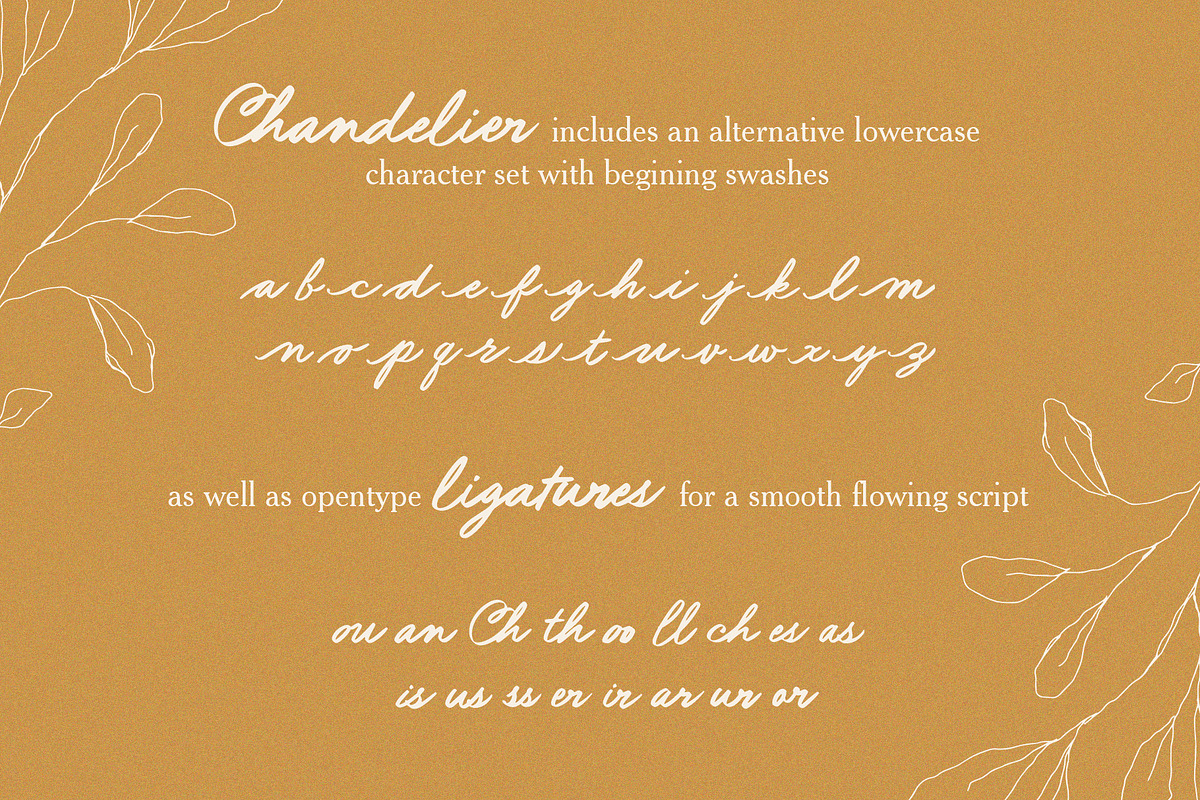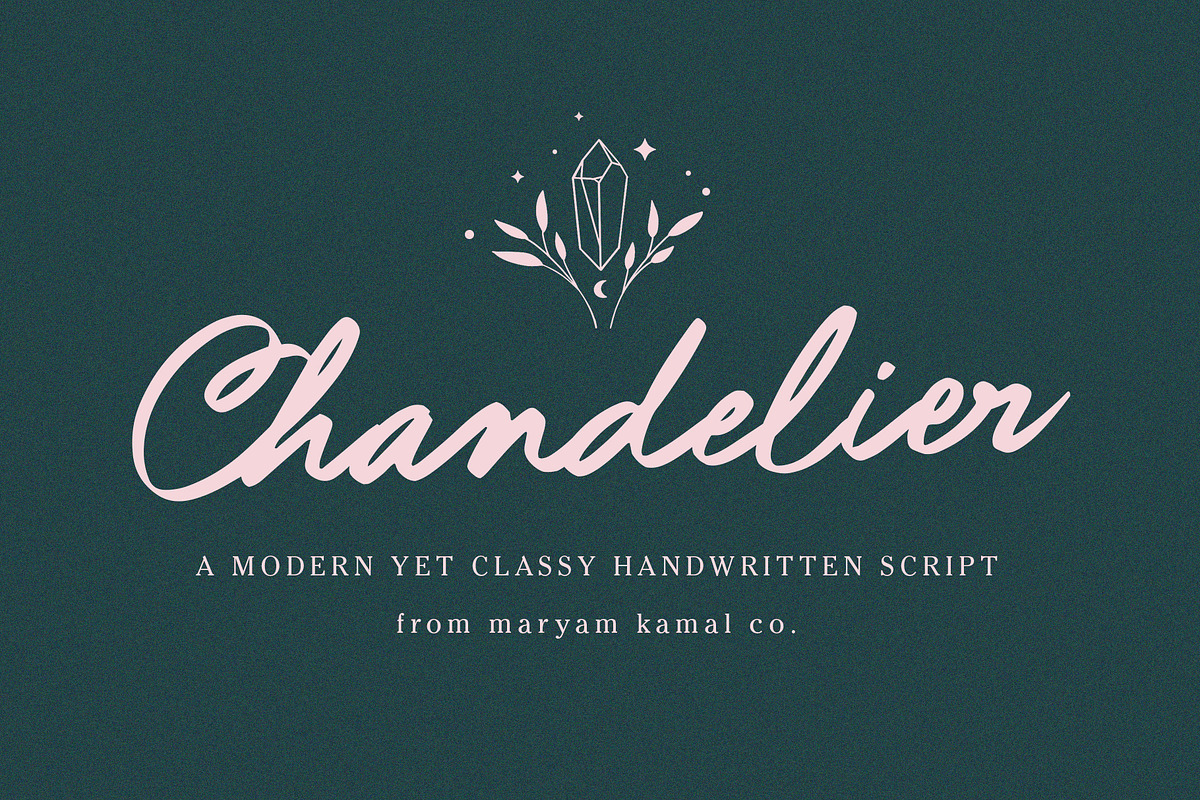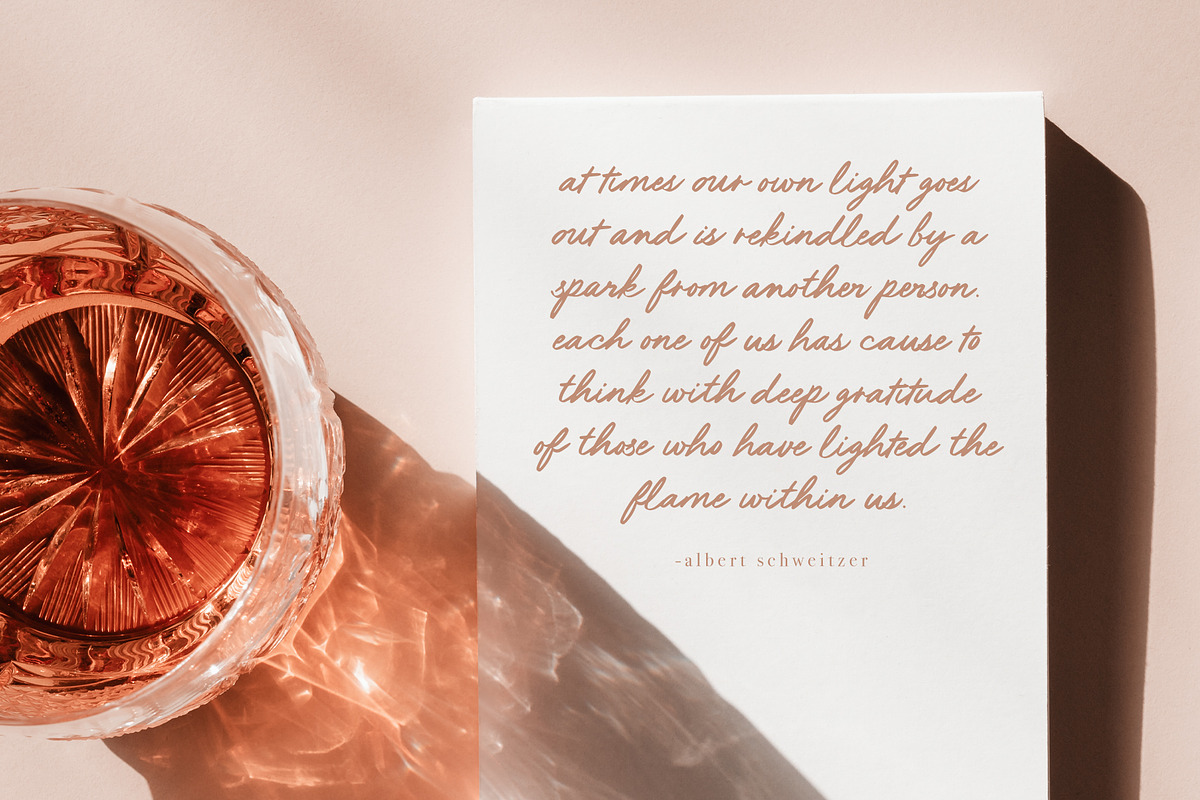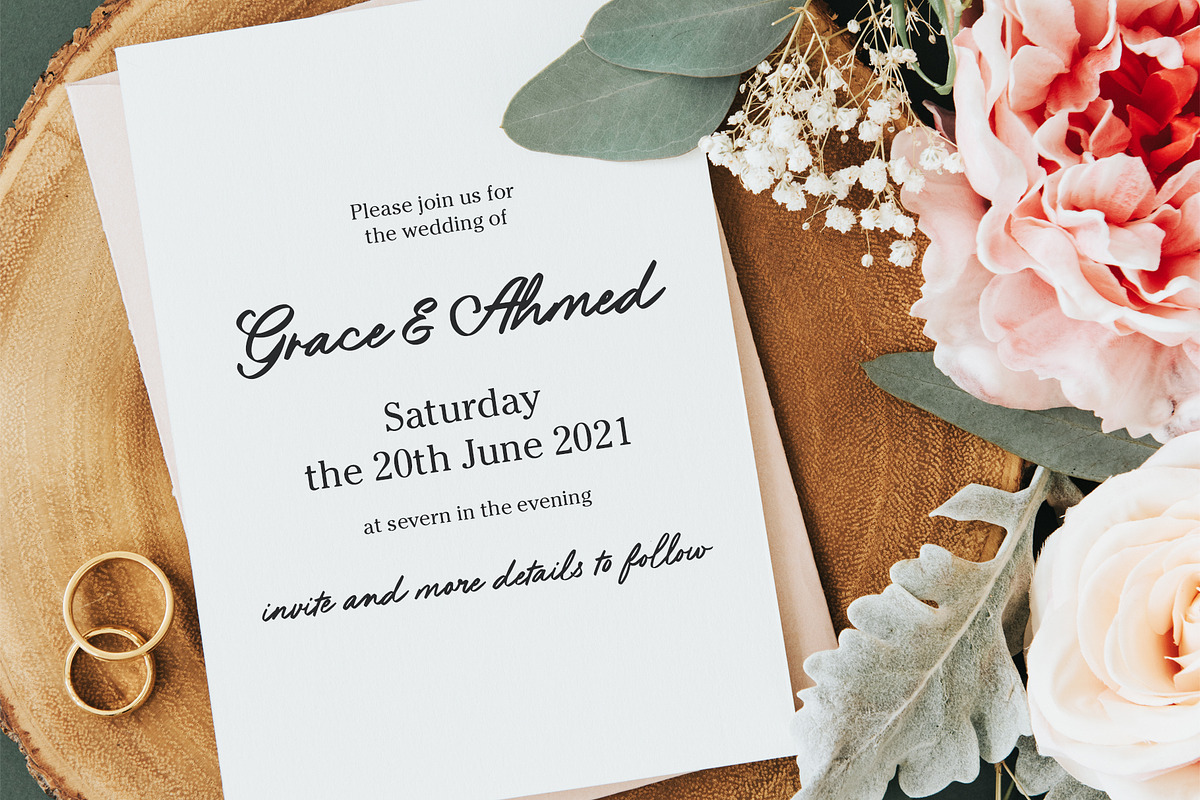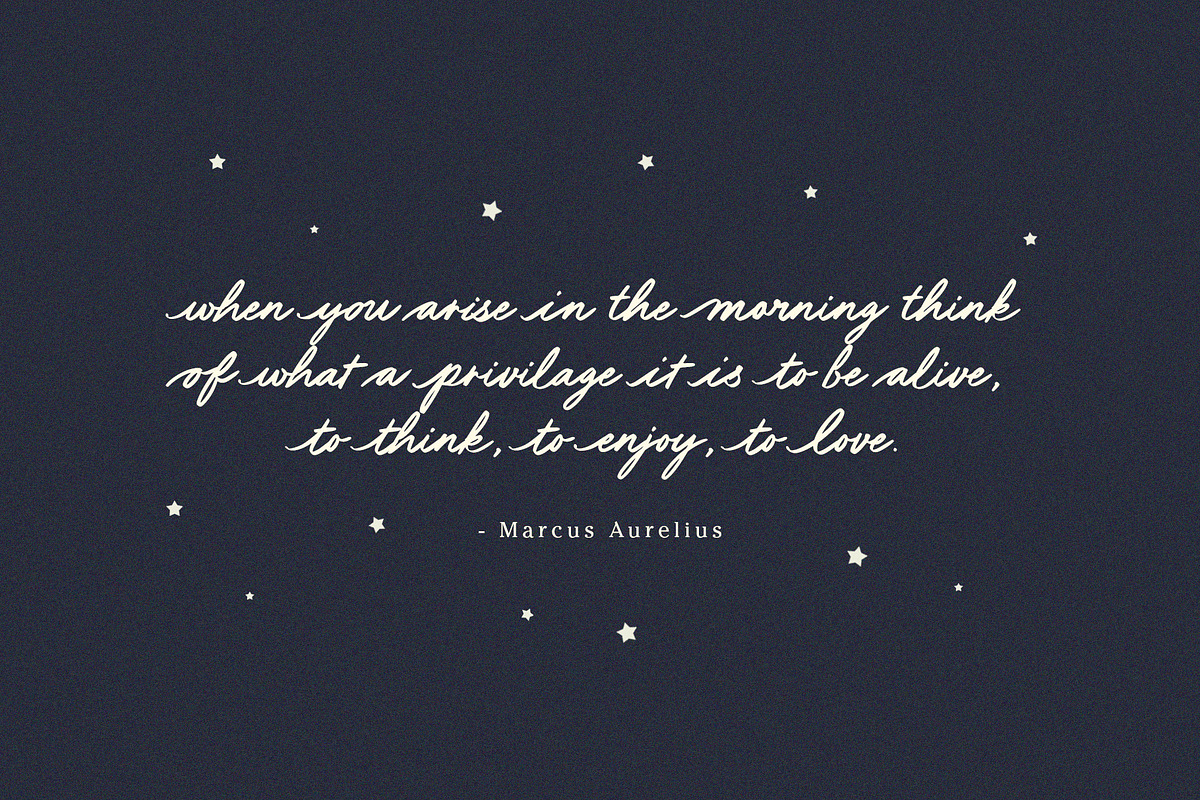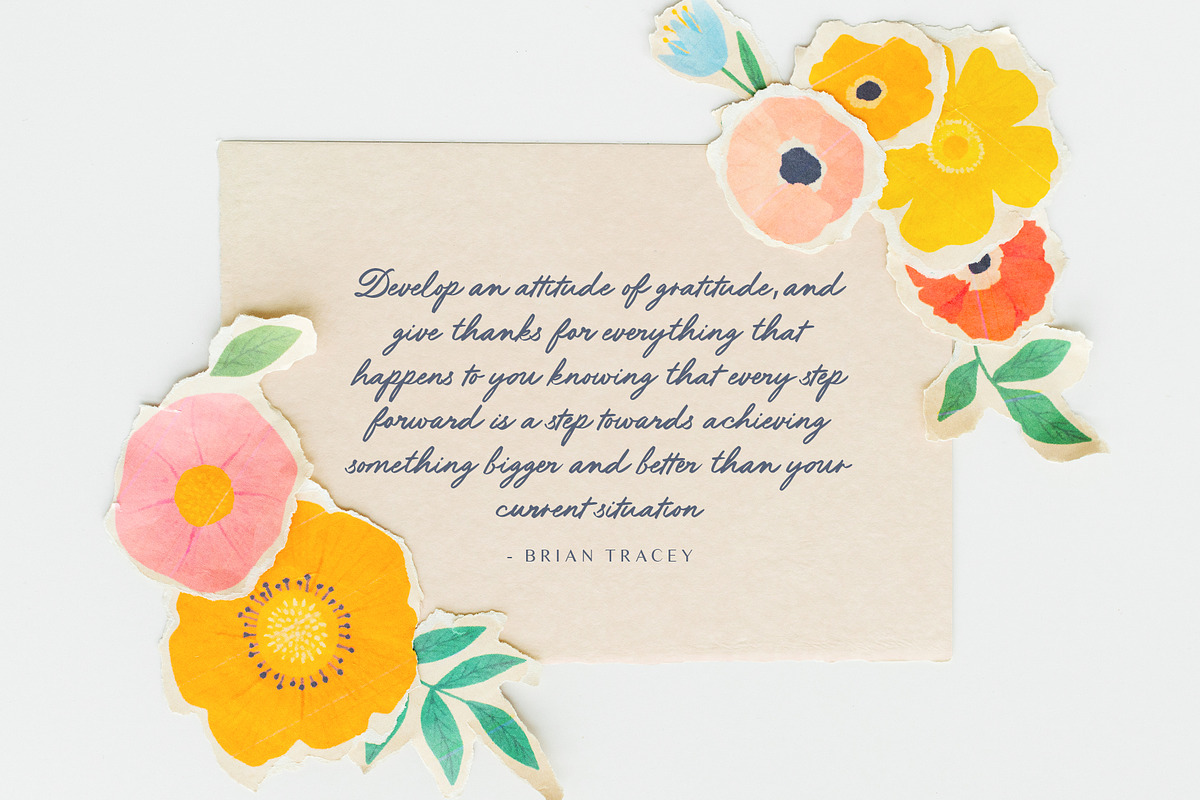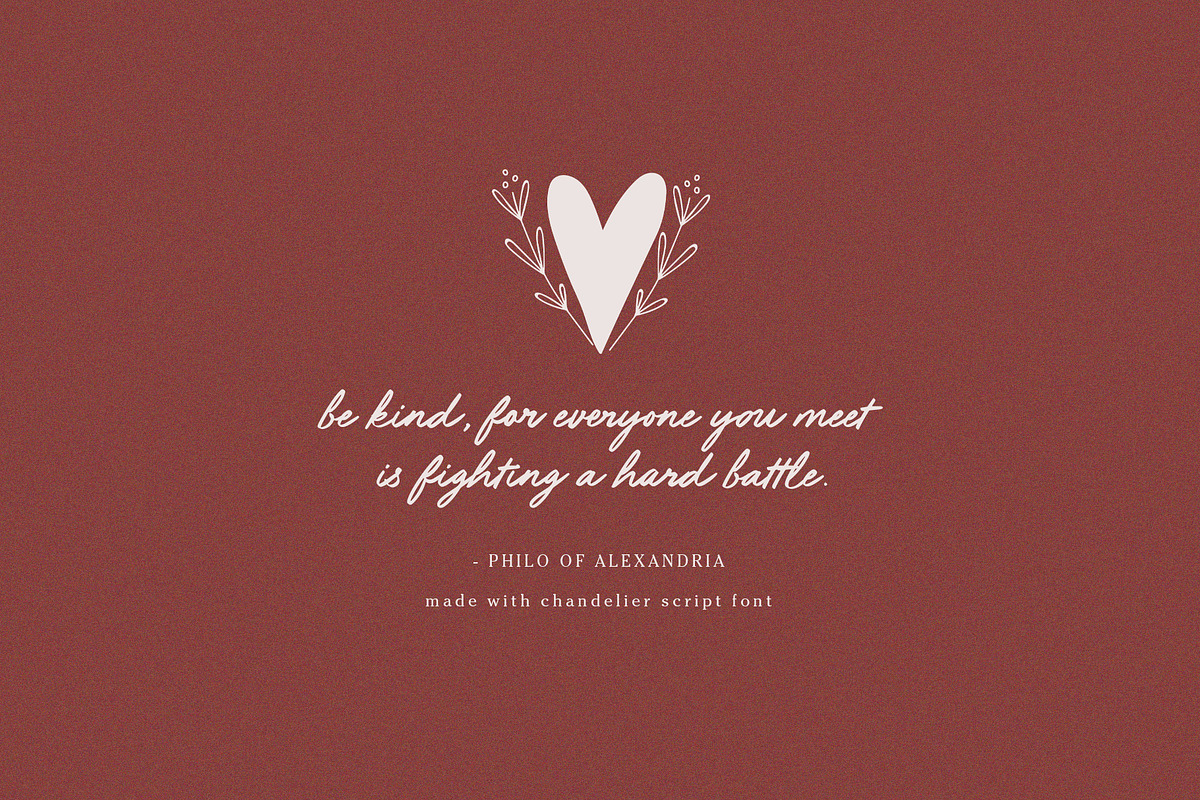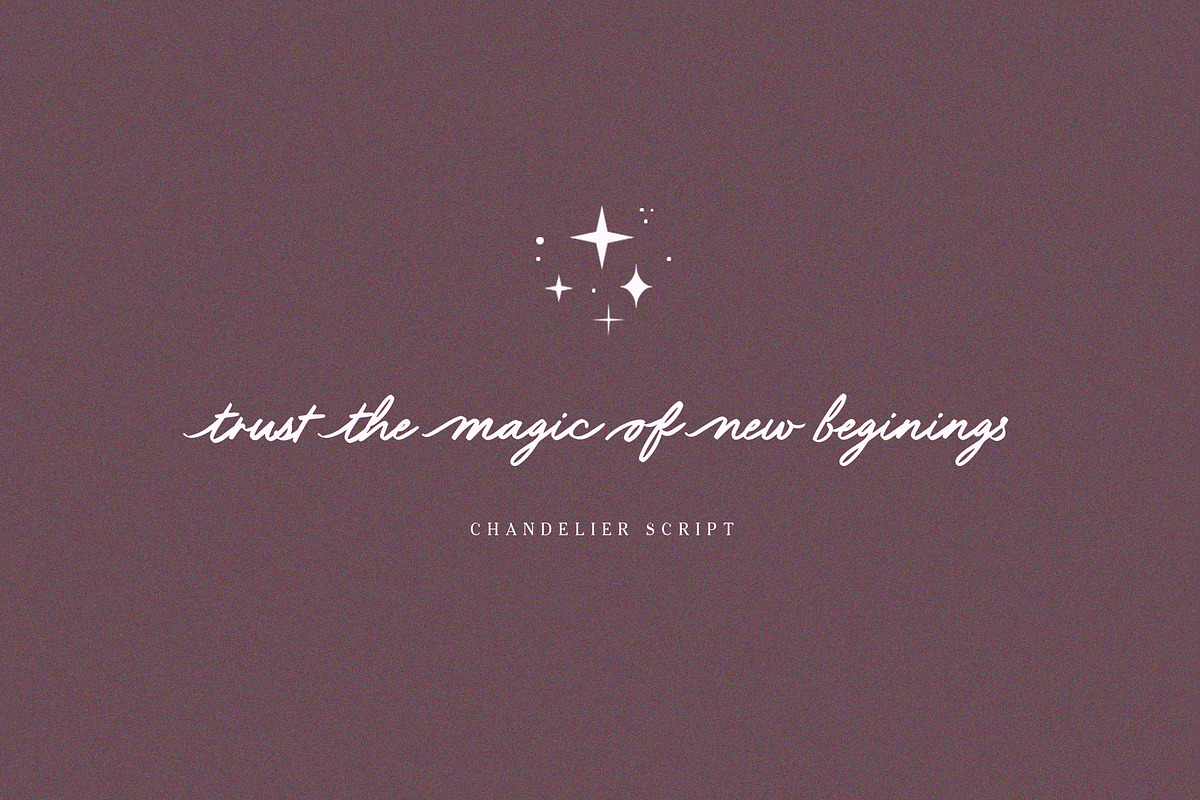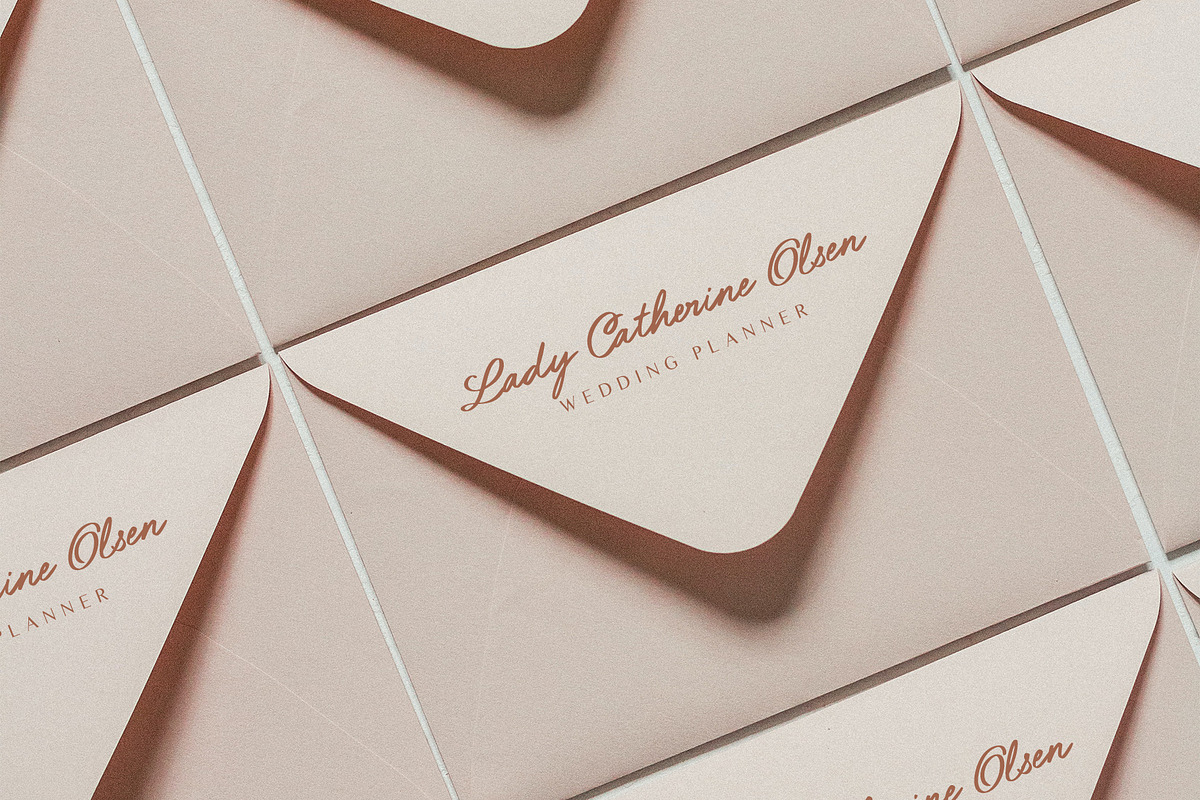
Chandelier Script Font
Say hello to Chandelier! A modern yet classy handwritten marker script font. Slanted to give you romantic and dreamy vibes :)
The font comes with a full alternative lowercase set with beginning swashes. Adorable for creating quotes or anything inspiring. It also comes with ligatures for a smooth flowing hand-lettered script.
Language Support: Danish, English, Finnish, French, German, Italian, Luxembourgish, Norwegian Portuguese, Spanish, Swedish, Swiss German.
The following characters included: á â à ä å ã æ ç é ê è ë í î ì ï ı ñ ó ô ò ö õ ø œ š ß ú û ù ü ý ÿ ž À Ä Å Ã Æ Ç É Ê È Ë Í Î Ì Ï Ñ Ó Ô Ò Ö Õ Ø Œ Š Û Ù Ü Ý Ÿ